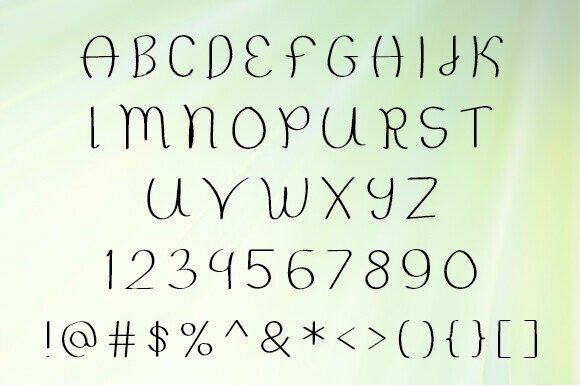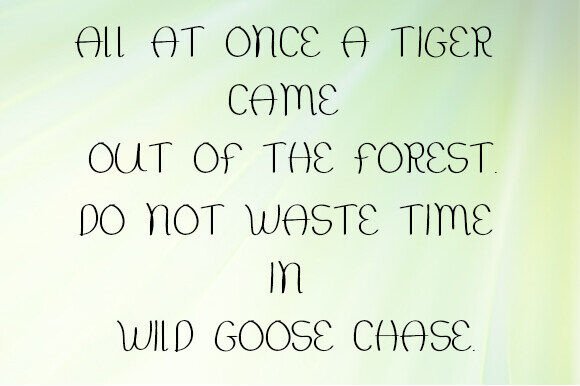
Introduction to Greater Font
Have you ever stared at a blank canvas, eager to bring your creative project to life, only to be halted by the perfect font eluding you? It’s that moment when you wish you had a treasure trove of high-quality design resources at your fingertips. Well, we’re here to tell you that treasure is real, and it’s called the Greater Font.
This sweet and friendly handwritten font is the perfect companion for designers looking to add a personal touch to their work. Its natural and unique style makes it incredibly versatile, allowing you to unleash your imagination and create something truly special. Whether you’re working on a free download or a paid project, the Greater Font is a valuable addition to your design arsenal, offering a transparent background that will seamlessly integrate into your design.
- Designed with a modern and sleek aesthetic, ideal for use in graphic design, web design, and digital art.
Honest Review: Greater Font
As a designer, I’m always on the lookout for high-quality fonts to elevate my creative projects. I recently stumbled upon the Greater Font, and I’m excited to share my honest review with you.
Here are some things that work well with the Greater Font:
- ✨ Clean and modern design aesthetic, perfect for contemporary projects
- ✨ Large character set with a wide range of languages supported
- ✨ Transparent background, making it easy to use on any design surface
- ⚠️ Limited character styles and variations, which may not be suitable for all projects
- ⚠️ Not as extensive a family as some other fonts, which may limit its use in certain contexts
Overall, I’m impressed with the Greater Font’s clean design and versatility. While it may not be the most extensive font family, it’s a solid choice for designers looking for a high-quality, modern font. With a free download available, it’s definitely worth checking out for your next creative project.
Greater Font is suitable for a variety of creative projects, including logos, graphics, presentations, and documents. Its high-quality design and transparent background make it an ideal choice for designers and non-designers alike.